Choosing the right font is essential for a luxury women’s clothing brand that exudes elegance, sophistication, and timeless style. Font is more than just design elements; it helps create a memorable visual identity.
In this article, we’ll explore the best fonts for luxury women’s clothing brands for lasting impressions in the high-end fashion market.
Key Takeaways:
- The right font helps express elegance, femininity, and professionalism for women’s clothing brands.
- The font choices from Rantau Studio blend luxury and modern design, perfect for fashion branding.
- Perfect choice of fonts for luxury women’s clothing brands will elevate visual identity with style and sophistication.
40 Fonts for a Luxury Women’s Clothing Brand
Let’s explore what defines luxury fashion and how the right fonts can elevate your clothing brand’s presence, reflecting the elegance, exclusivity, and sophistication your audience expects.
1. Endysta
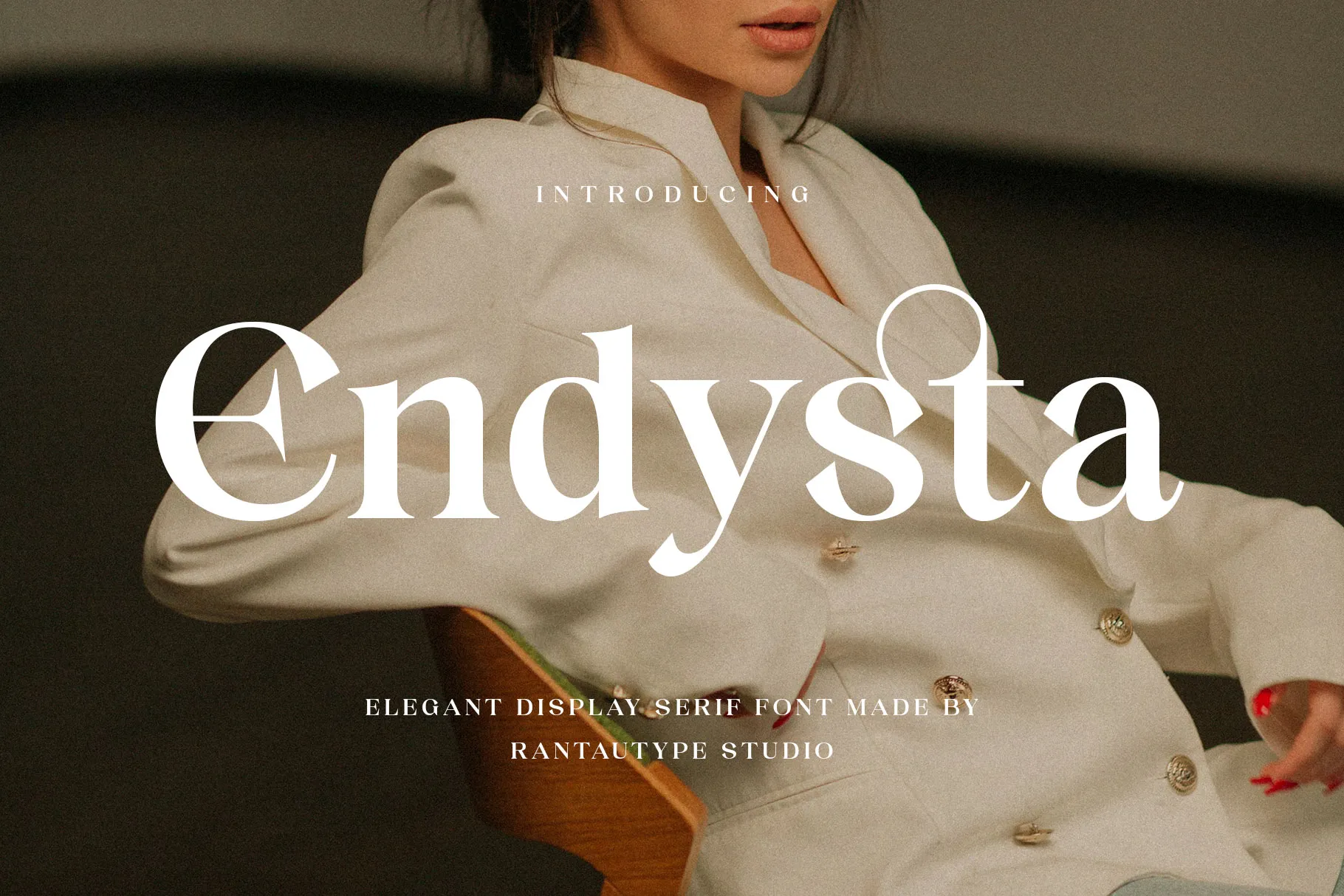
Let Endysta’s delicate curves and well-balanced design add elegance and class to your clothing brand. For each style in your collection, it will add a touch of luxury.
2. Bredina
Beyond luxury branding, adding a sense of femininity to your clothing brand is just as essential. This font brings both graceful curves and an elegant touch to your products.
3. Medancy
Medancy is an elegant font with flawless curves that embody grace and vintage charm. It’s the perfect choice for luxury collections seeking to blend sophistication with a vintage touch.
4. Restacy
Restacy features stylish curves and a trendy look, making it an excellent choice for a dress boutique or any project that demands a fresh, contemporary vibe.
5. Brayena
This is one of the elegant fonts for a luxury women’s clothing brand featuring delicate curves and high-contrast strokes, capturing classic beauty with a soft, sophisticated, and romantic style.
6. Crestaly
Crestaly offers sleek curves and refined details, ideal for crafting a modern, high-end brand identity for any models in your clothing line.
7. Rabelya
Make your clothing brand shine with a touch of luxury. This typeface perfectly marries classic serif beauty with modern refinement, creating a rich impression at first glance.
8. Ronace
Ronace is a refined and luxurious serif font that captures elegance and timeless charm. Its minimalist design leaves a lasting impression.
9. Belasty
This calligraphy-inspired font features flowing strokes, varied thickness, and stylish flourishes that are perfect for creating a refined and artistic look for clothes collections.
10. Amellate
Elevate your professional clothes design project with Amellate. A signature brush font with stylish, trendy characters, perfect for adding a modern and handwriting touch.
11. Settacy
Settacy is made for fashion that speaks luxury. With its refined details and timeless charm, this font adds elegance and sophistication to your high-end clothing brand.
12. Ramolia
Ramolia is a bold, decorative font with beautiful letterforms that adds a unique and aesthetic flair. It’s perfect for women’s clothing brands looking to make a stylish tone.
13. Rovalen
This font brings a graceful, stylish feel effortlessly through unique ligatures, inspired by modern fashion trends and premium luxury branding.
14. Kedanty
Every curve speaks style: effortless, bold, and refined. Kedanty beautifully fuses grace and femininity, making it the ideal font for fashion labels seeking a sleek, modern edge.
15. Madilga
It comes with a beautiful typographic harmony. Featuring sleek shapes and flawless curves, it’s the perfect choice for minimalist designs.
16. Cenira Bloomer
Choose these luxury brand fonts to enhance your business image. It is made with a refined ligature serif font that blends elegance and character for your clothing product.
17. Mainga
Mainga is a modern, elegant serif font inspired by high-fashion visuals. Use it to effortlessly elevate your brand with timeless elegance and chic style.
18. Kasely
Crafted with love and passion, Kasely is the professional choice for any chic women’s clothing brand. It perfectly blends classic elegance, modern flair, and luxury.
19. Clanera
Clanera features beautiful ligatures and alternates that make your design stand out. Combining bold minimalism with luxurious serif, it’s perfect for upscale branding.
20. Radeya
It is ideal for stylish fashion branding because it comes in regular and italic versions with a variety of variations. It’s perfect for sleek fashion branding.
21. Maidega
Maidega is the ideal font to help your company stand out with elegance because it is bold and has an opulent character.
22. Grettina
Grettina brings a chic, stylish touch with elegant strokes and a fresh, modern feel. It is perfect for logos that speaks with effortless sophistication.
Transform Your Luxury Women’s Clothing Brand with Elegant Fonts